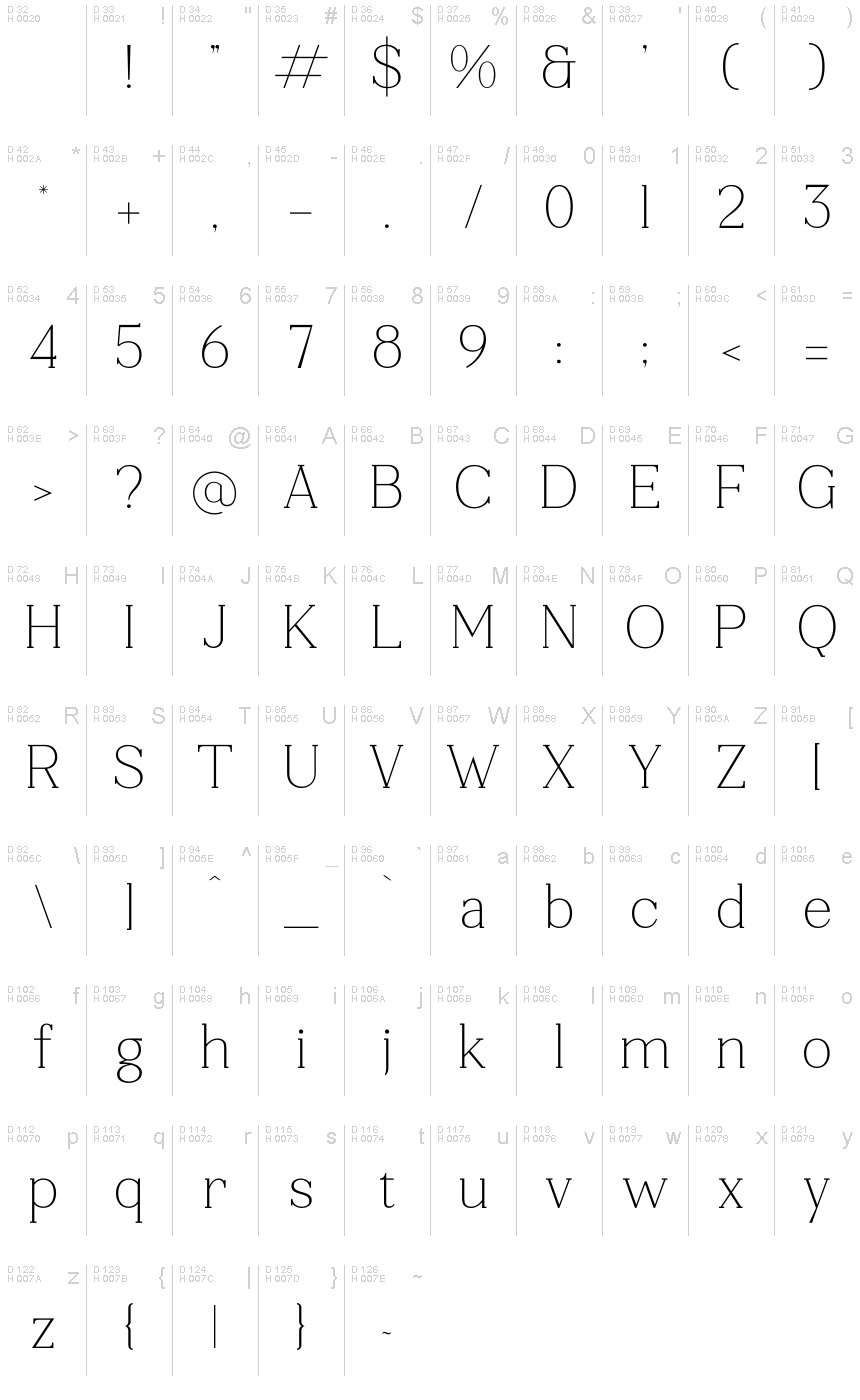
Courthes
Courthes, a captivating serif font crafted by Storytype Studio, exudes an alluring combination of elegance and refinement. Its light weight and delicate strokes create a graceful, yet impactful aesthetic that instantly commands attention. The subtle flourishes and harmonious letter spacing lend an air of sophistication, making Courthes a versatile choice for a wide range of design applications.
Courthes' versatility shines through its ability to seamlessly adapt to various contexts. Its refined and polished appearance lends itself perfectly to high-end branding, editorial layouts, and luxurious product packaging. Equally at home in formal invitations, event materials, or prestigious publications, Courthes effortlessly conveys a sense of prestige and timeless charm, captivating audiences and elevating any design project.